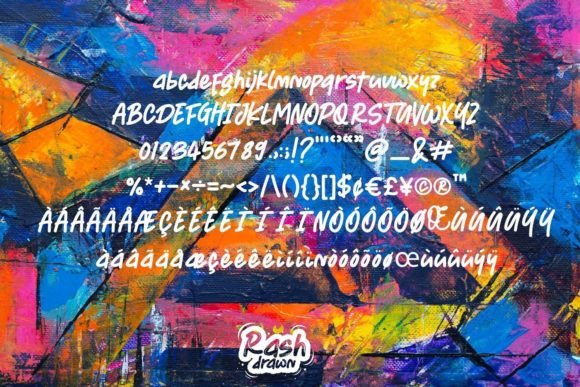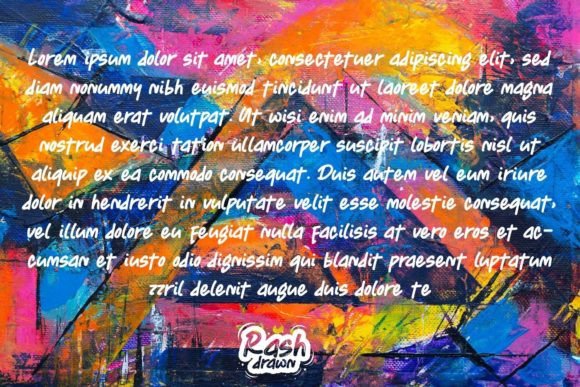
Smys Font
About Smys Font
“Unleash Your Creativity with Smys Handwritten Font
Dive into the delightful world of Smys, a fun and friendly handwritten font that adds a touch of whimsy to any design project. With its playful charm and unique character, Smys is the perfect choice for turning your creative ideas into standout masterpieces.
The beauty of Smys lies in its distinct personality. Each letterform is infused with a sense of fun and spontaneity, capturing the essence of casual handwriting. Whether you’re crafting greeting cards, social media posts, invitations, or playful branding materials, Smys effortlessly conveys a sense of warmth and approachability.
Imagine using Smys to create eye-catching headlines on posters, adding a touch of whimsicality to your promotional materials. Picture it gracing your social media graphics, instantly capturing the attention of your audience with its playful vibe. Envision Smys adorning children’s book covers, bringing characters and stories to life with its friendly and inviting appearance.
One of the standout features of Smys is its versatility. Its clean and legible design ensures clarity in communication, making it suitable for a wide range of applications. Whether you’re designing for digital platforms or print media, Smys adapts seamlessly to your needs, allowing your creativity to flow without limitations.
Let Smys be your go-to choice when you want to infuse your designs with a sense of joy and lightheartedness. Its friendly demeanor and unique charm will captivate your audience, making your creations memorable and engaging. Embrace the playful spirit of Smys and watch as your designs come to life with creativity, energy, and personality.”